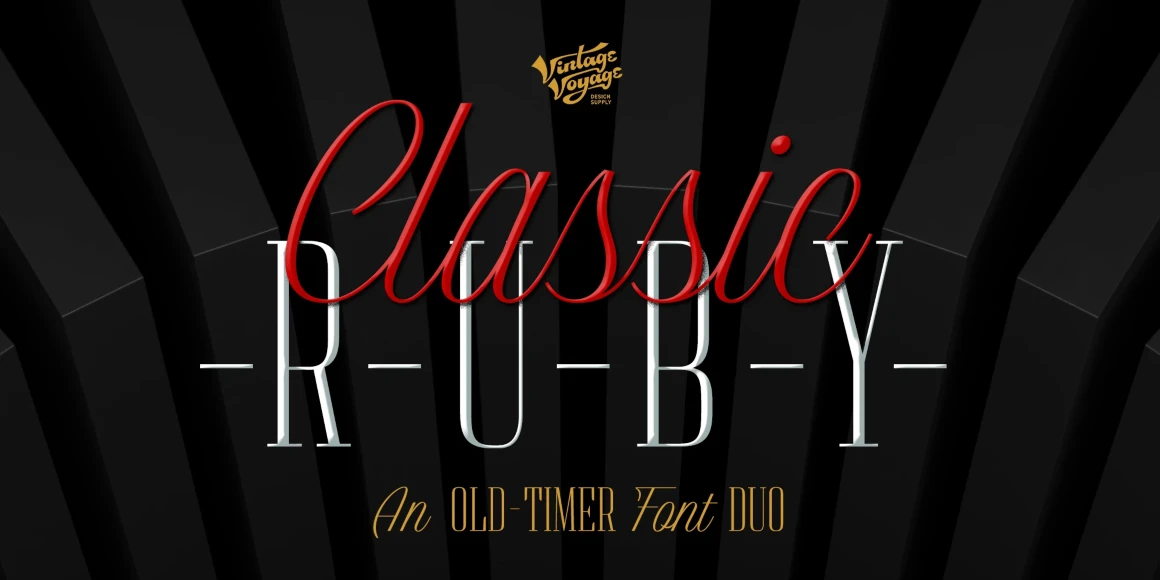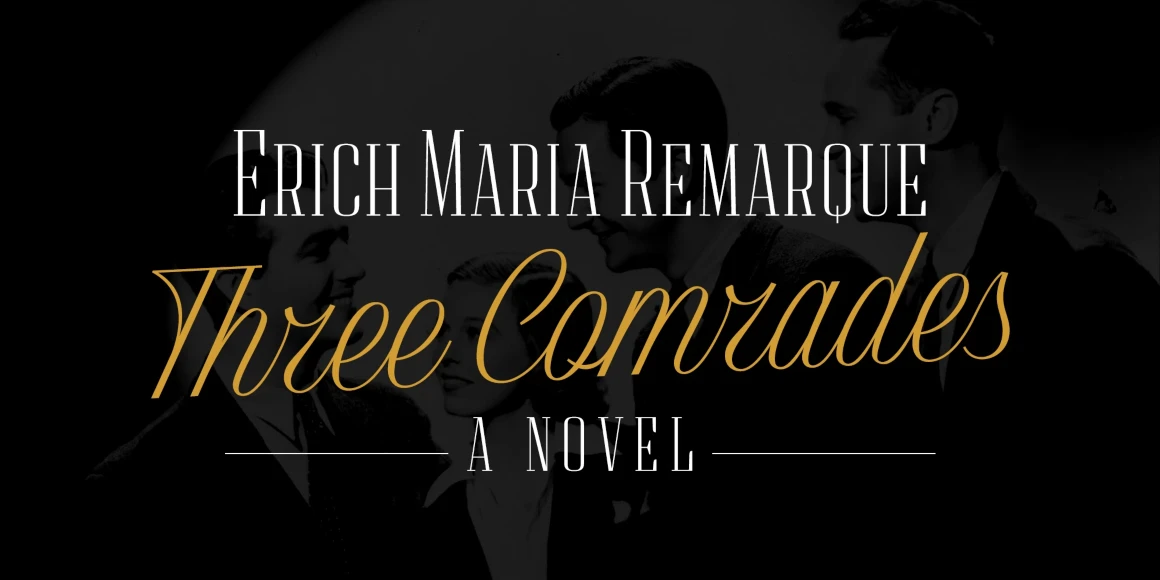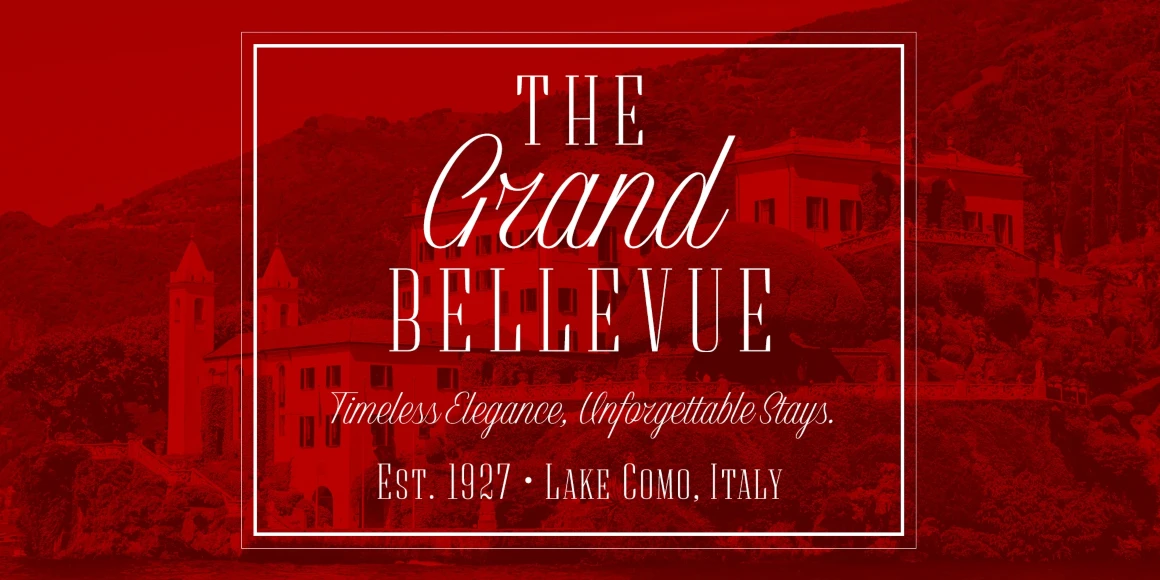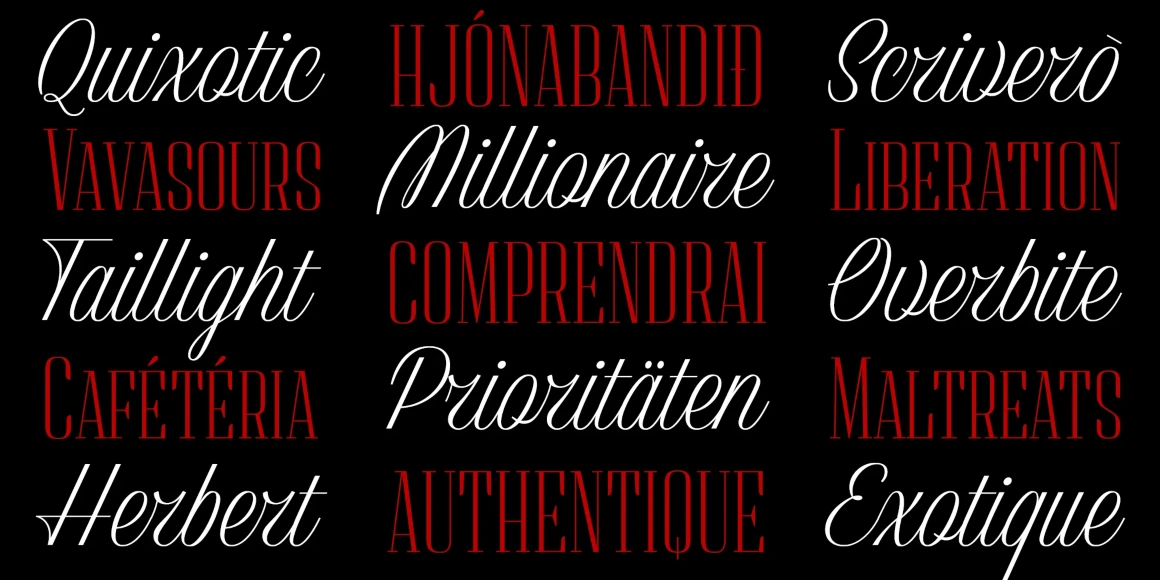
Classic Ruby Script
From Vintage Voyage Design
Classic Ruby is a stunningly refined duo of modern serif and vintage English script, perfectly capturing the elegance of the mid-20th century when the streets were filled with Cadillacs and the airwaves with crooners. Pared down to the essential — the all-caps serif includes small caps, and the script has a handful of useful alternates. Combined, they form an elegant pair, perfect for wedding party invitations, coffee table books, album covers, event posters, and the pages of a fashion magazine.